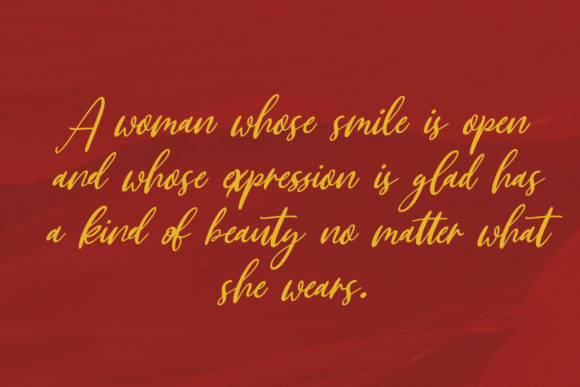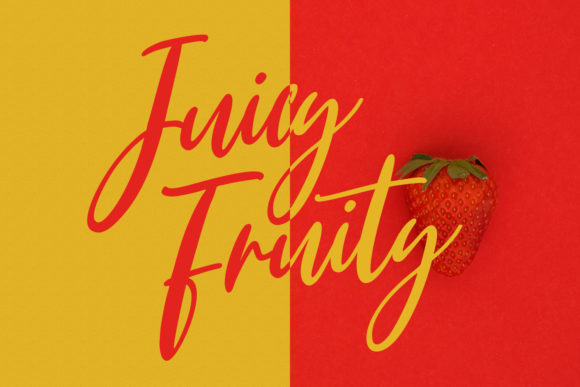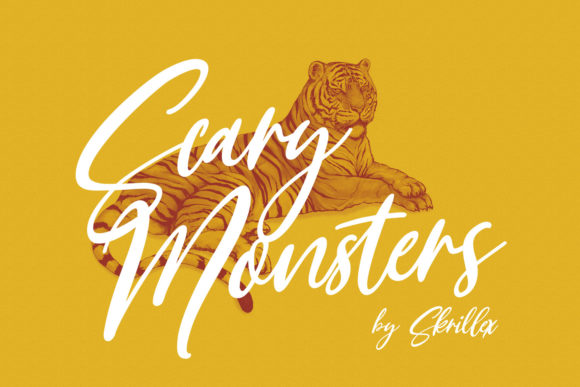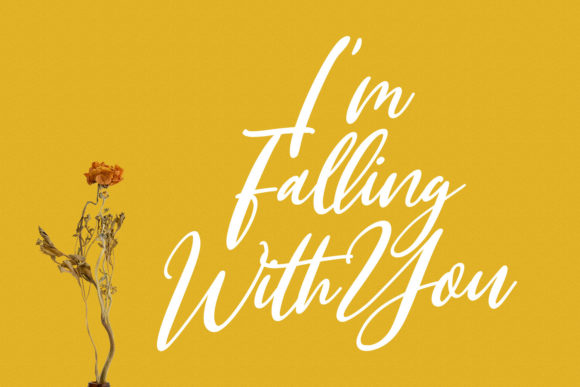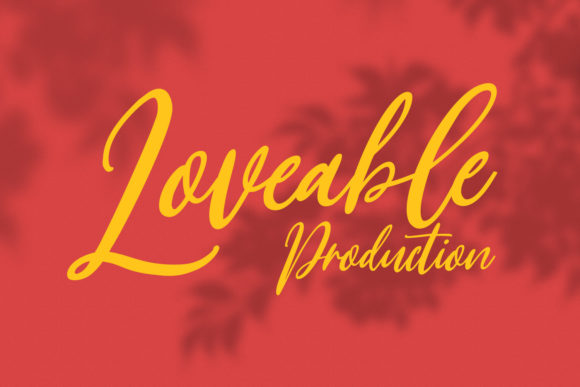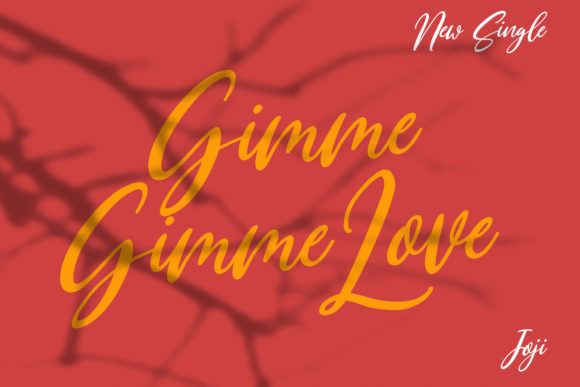
Discover the Charm of Clifttons Font: Elevate Your Designs with its Playful Elegance
Are you on the hunt for a font that adds a touch of whimsy and sophistication to your designs? Look no further than Clifttons Font, a lovely script font that is sure to capture your heart. With its charming, playful characters that seem to dance along the baseline, Clifttons is the perfect addition to your font collection. In this article, we’ll dive into the world of Clifttons Font, exploring its features, benefits, and uses, and why it’s a must-have for designers and crafters alike.
What is Clifttons Font?
Clifttons Font is a beautiful script font that boasts a unique and elegant style. Its characters are designed to be highly legible, making it perfect for use in a variety of design projects, from digital media to print materials. The font features a flowing, cursive style that gives it a playful and charming feel, making it ideal for designs that require a touch of personality and whimsy.
Key Features of Clifttons Font
So, what makes Clifttons Font so special? Here are some of its key features:
- Charming and Playful Characters: Clifttons Font features characters that seem to dance along the baseline, giving it a playful and whimsical feel.
- Elegant and Sophisticated: Despite its playful nature, Clifttons Font is also elegant and sophisticated, making it perfect for designs that require a touch of luxury and refinement.
- Highly Legible: The font is designed to be highly legible, making it perfect for use in a variety of design projects, from digital media to print materials.
- Versatile: Clifttons Font is versatile and can be used in a variety of design projects, from branding and advertising to packaging and signage.
Benefits of Using Clifttons Font
So, why should you choose Clifttons Font for your design projects? Here are some of the benefits of using this lovely script font:
- Adds a Touch of Personality: Clifttons Font adds a touch of personality and whimsy to your designs, making them stand out from the crowd.
- Enhances Creativity: The font’s playful and charming characters can help to stimulate your creativity and inspire new ideas.
- Perfect for Branding and Advertising: Clifttons Font is perfect for use in branding and advertising projects, where its elegant and sophisticated style can help to create a lasting impression.
- Easy to Use: The font is easy to use and can be easily integrated into your design projects, making it perfect for designers of all levels.
Uses of Clifttons Font
So, how can you use Clifttons Font in your design projects? Here are some ideas to get you started:
- Branding and Advertising: Use Clifttons Font in your branding and advertising projects to add a touch of elegance and sophistication.
- Packaging Design: The font is perfect for use in packaging design, where its playful and charming characters can help to create eye-catching and memorable packaging.
- Signage and Displays: Clifttons Font is also perfect for use in signage and displays, where its elegant and sophisticated style can help to create a lasting impression.
- Digital Media: The font can be used in digital media, such as social media graphics, blog posts, and website designs, to add a touch of personality and whimsy.
In conclusion, Clifttons Font is a lovely script font that is sure to capture your heart. With its charming, playful characters that seem to dance along the baseline, Clifttons is the perfect addition to your font collection. Its elegant and sophisticated style makes it perfect for designs that require a touch of luxury and refinement, while its playful and whimsical feel makes it ideal for designs that require a touch of personality and charm. Whether you’re a designer or crafter, Clifttons Font is a must-have font that is sure to elevate your designs and inspire your creativity.